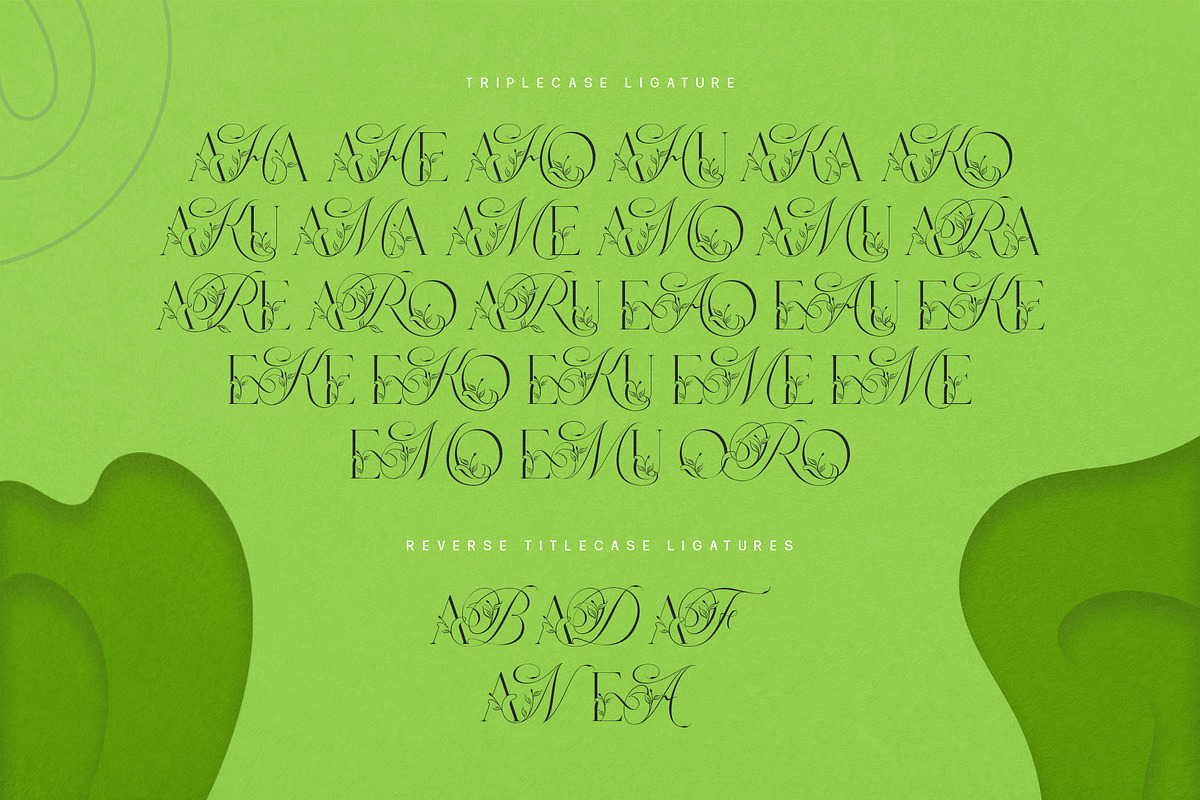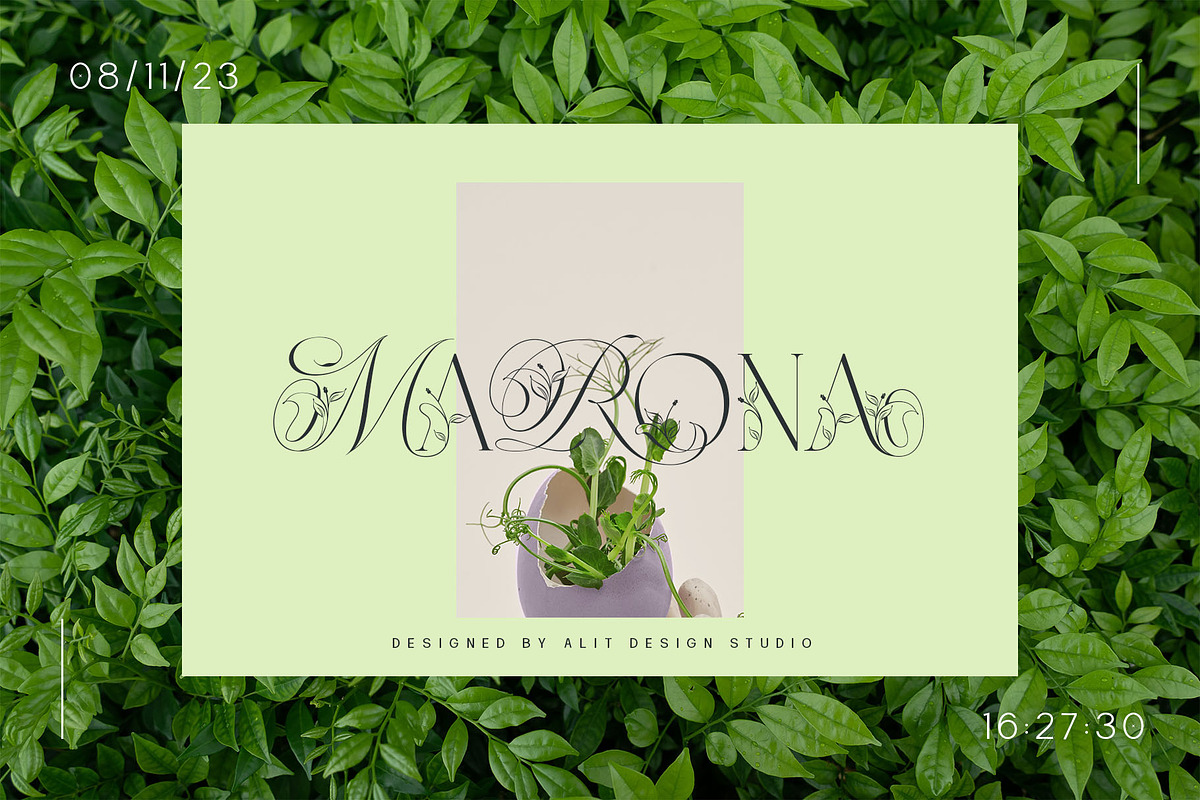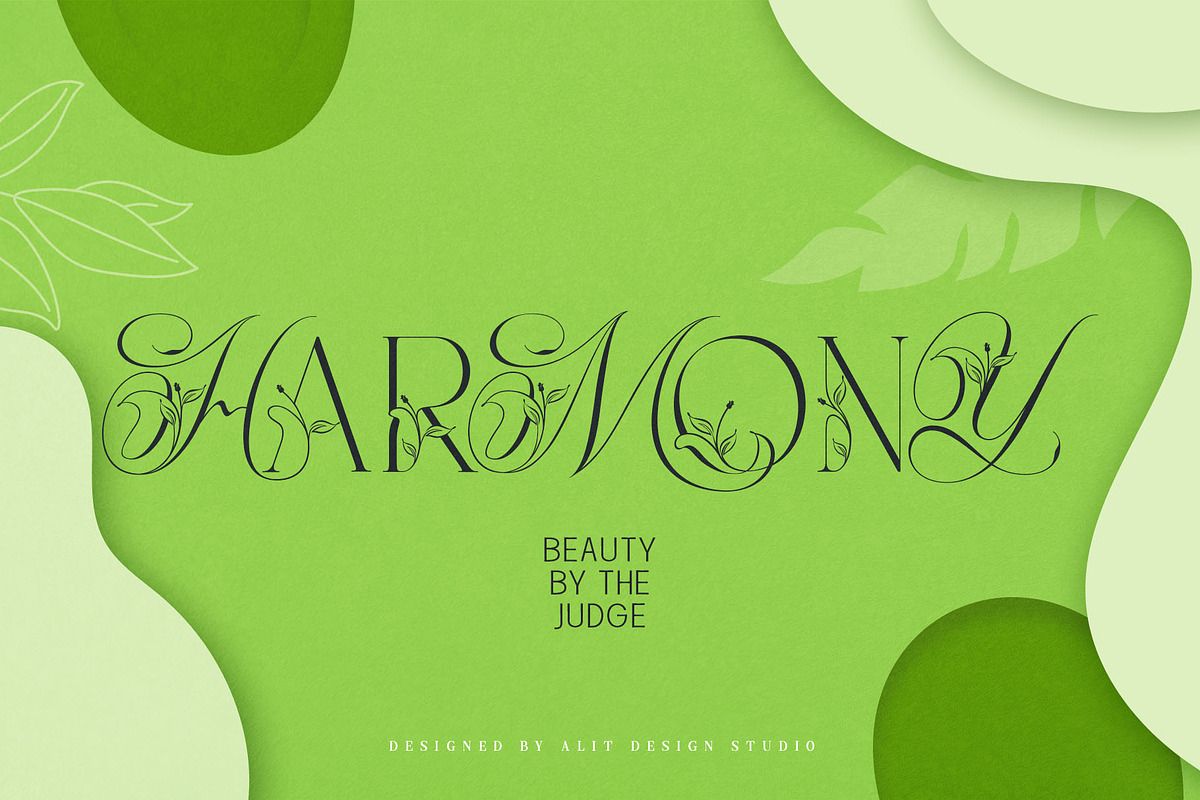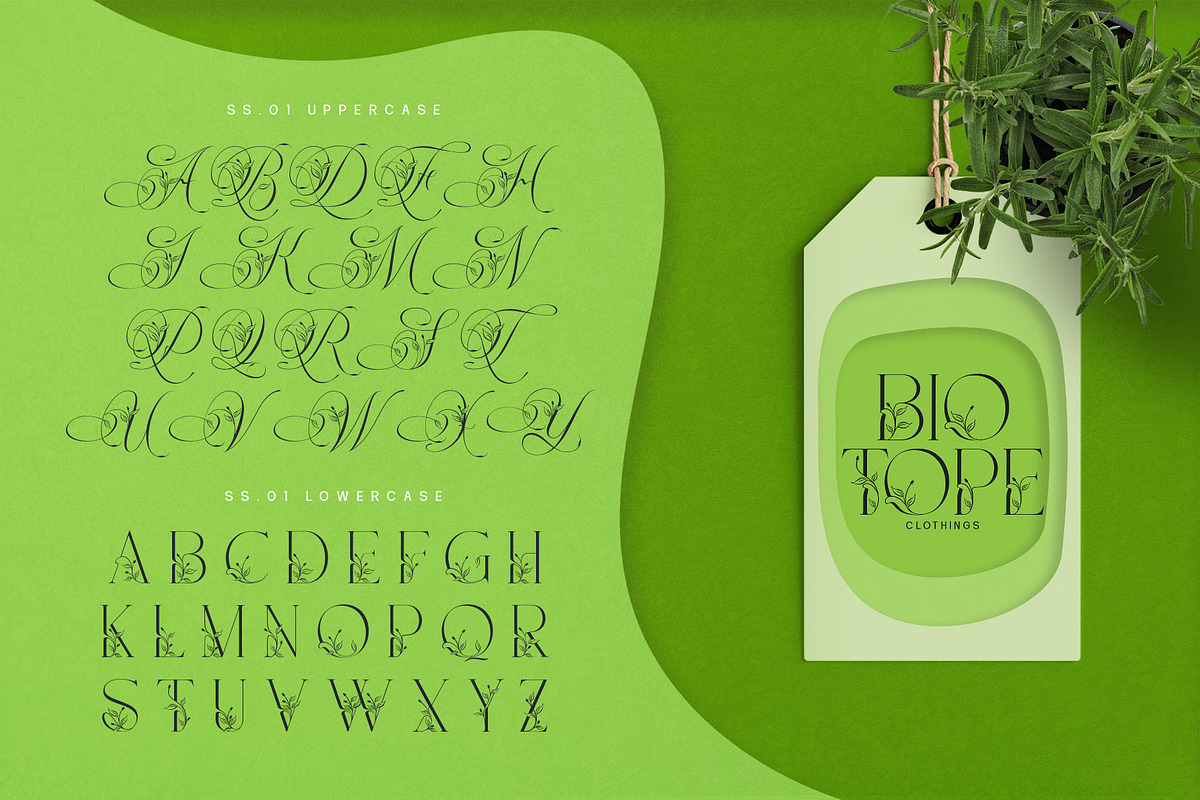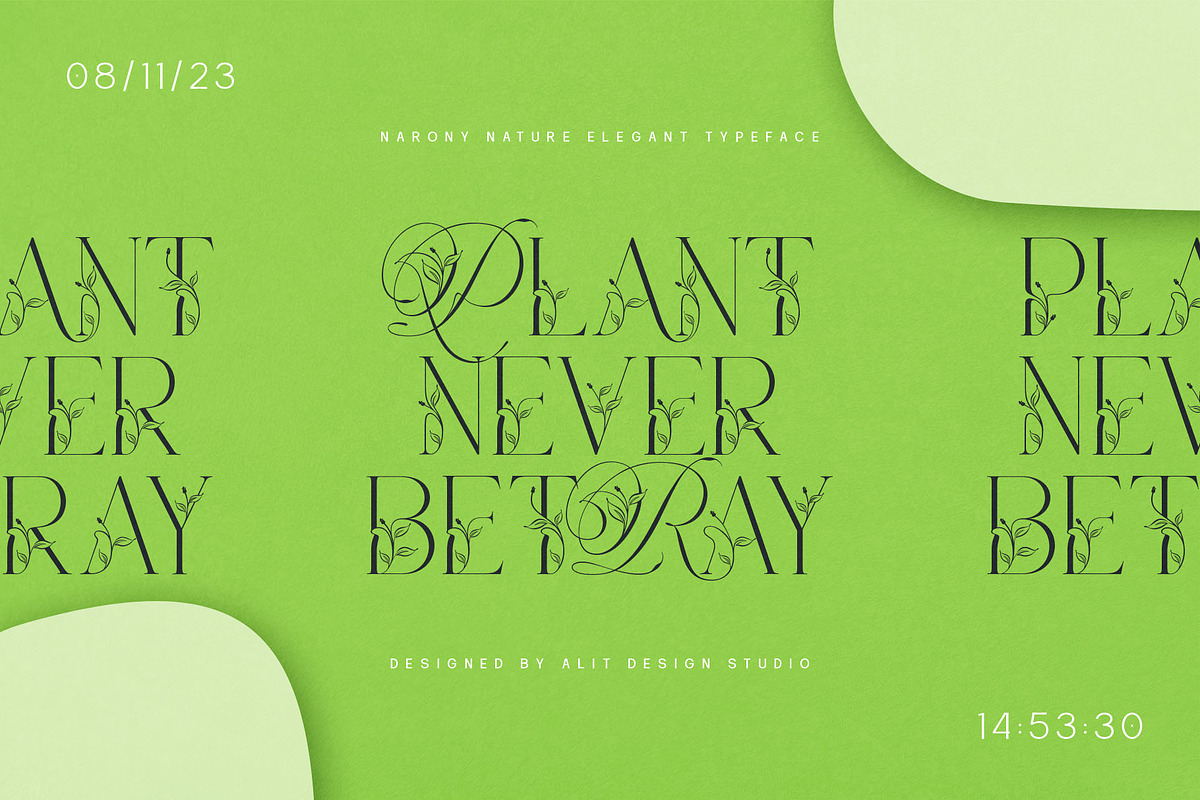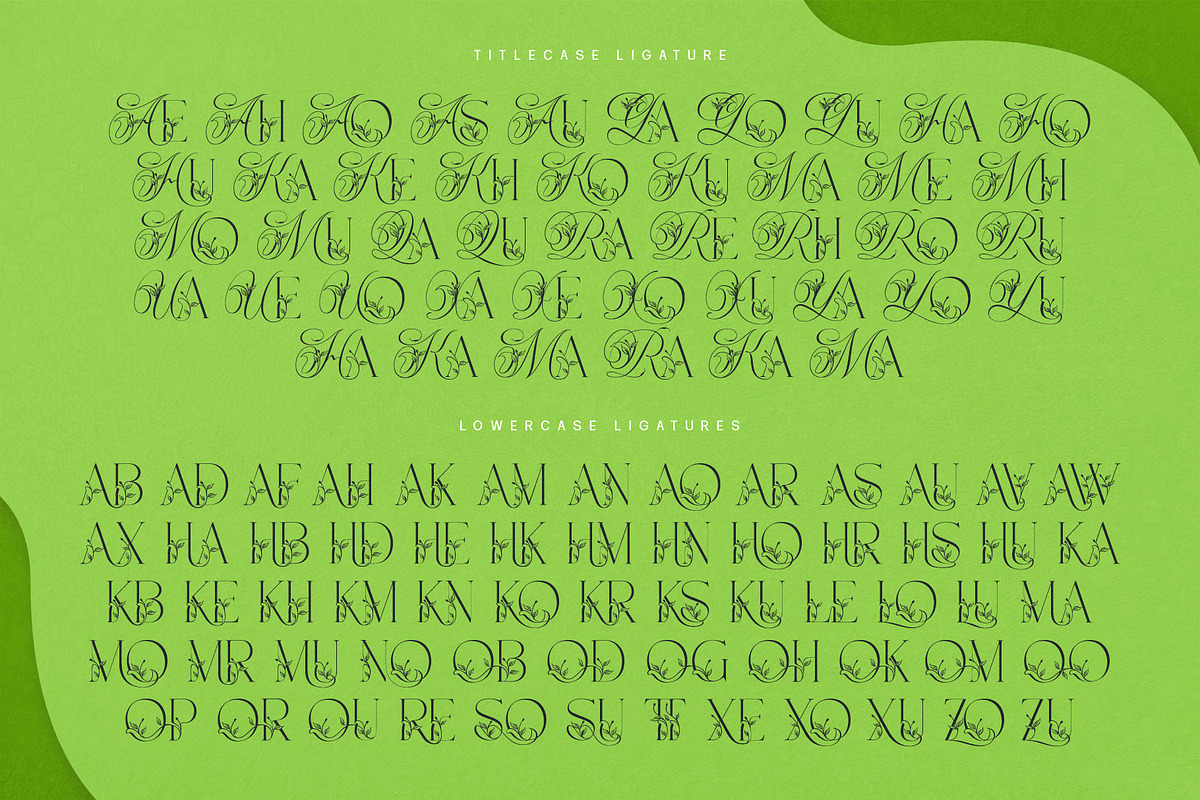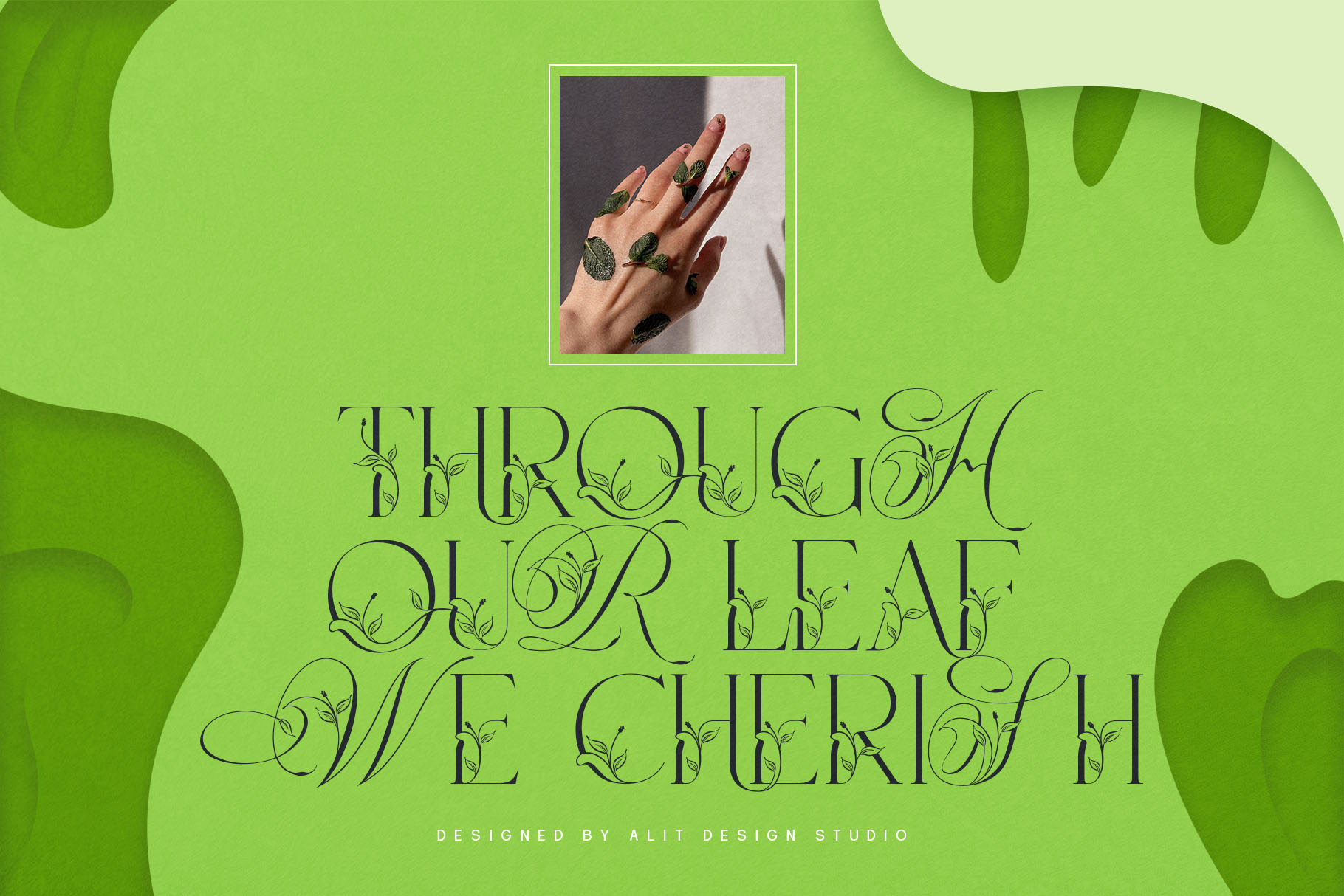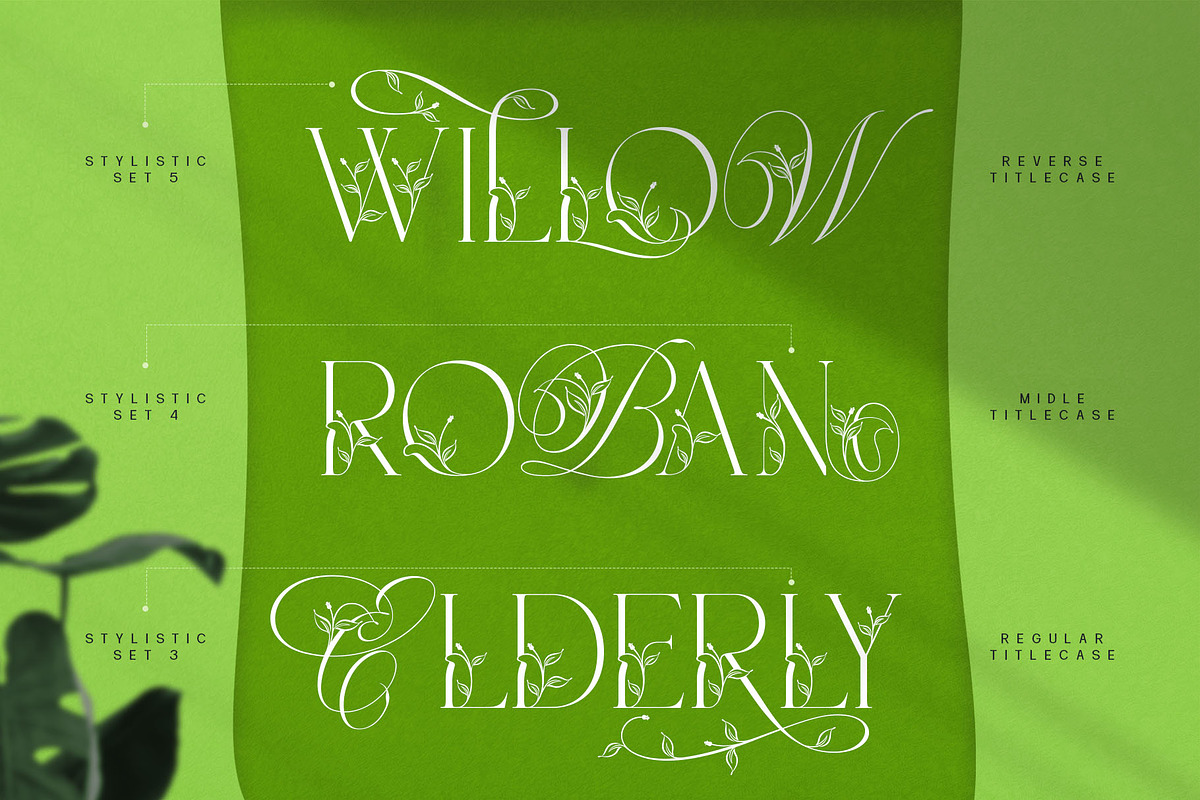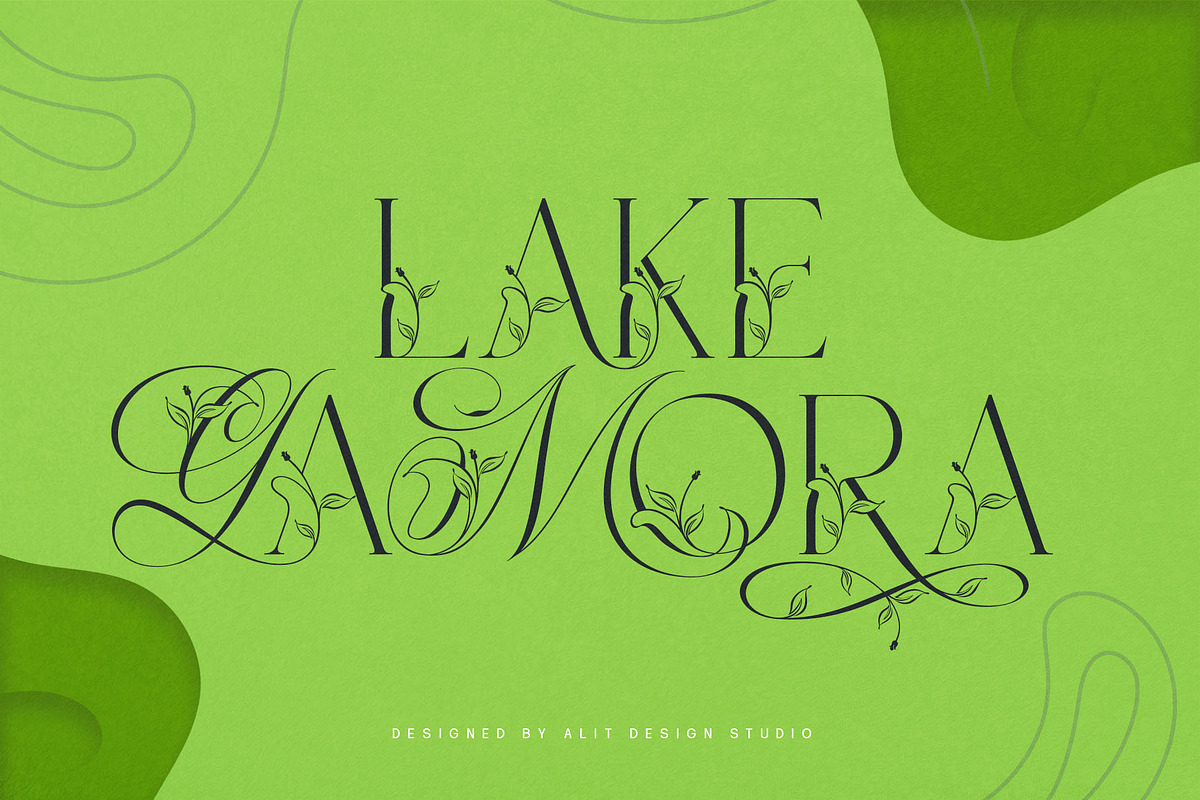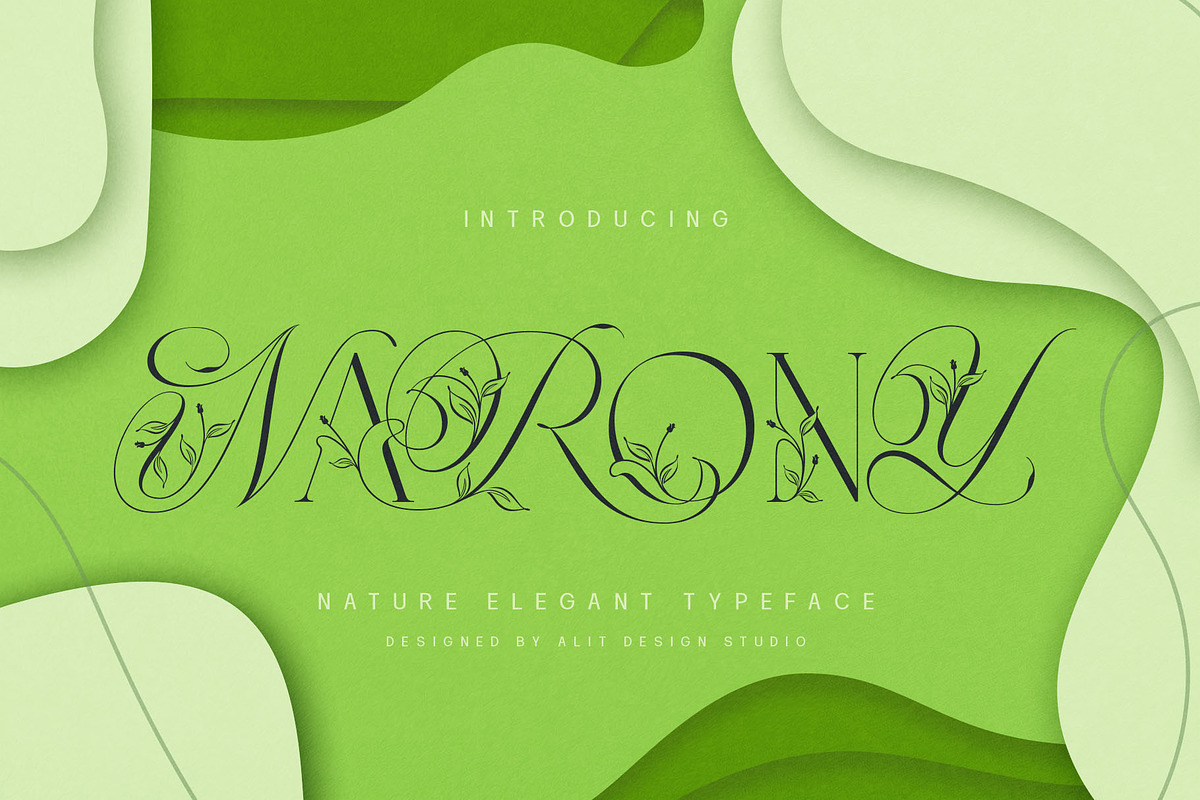
Narony Natural Typeface
Introducing "Narony" – where sophistication meets nature in a harmonious dance of elegant typography and organic inspiration. This unique font seamlessly blends the timeless allure of serif with the dynamic fluidity of script, creating a typographic masterpiece that is both refined and enchanting.
- Serif Elegance: Embrace the classic charm of serif letterforms that exude sophistication and readability. Narony's serif elements add a touch of timelessness to your text, making it perfect for both formal and creative contexts.
- Dynamic Script: The script elements in Narony bring a sense of movement and fluidity to your words. The dynamic script flows effortlessly, adding a touch of personality and modernity to your designs. Whether used for headings or accents, Narony's script component elevates your text with grace.
- Natural Harmony: Immerse your designs in the serenity of nature with Narony's natural concept. Adorned with elegant leaf illustrations, each character is delicately intertwined with botanical elements, creating a seamless blend of man-made artistry and the beauty of the natural world.
- Versatility in Design: Narony is designed for versatility, making it suitable for a wide range of applications. From branding and logo design to wedding invitations and editorial layouts, this font effortlessly adapts to various design needs.
- Distinctive and Memorable: Set your projects apart with a font that is both distinctive and memorable. Narony leaves a lasting impression on your audience, ensuring that your message is not just read but experienced.
Ideal Usage:
- Branding and Logo Design
- Editorial Layouts
- Wedding Invitations
- Packaging Design
- Social Media Graphics
- Nature-themed Projects
Elevate your designs with the perfect blend of sophistication and nature – Narony. Let your words flourish in the graceful strokes of this font, where each character is a work of art and each design tells a story of elegance and harmony. Experience the beauty of Narony and redefine your typographic expression.